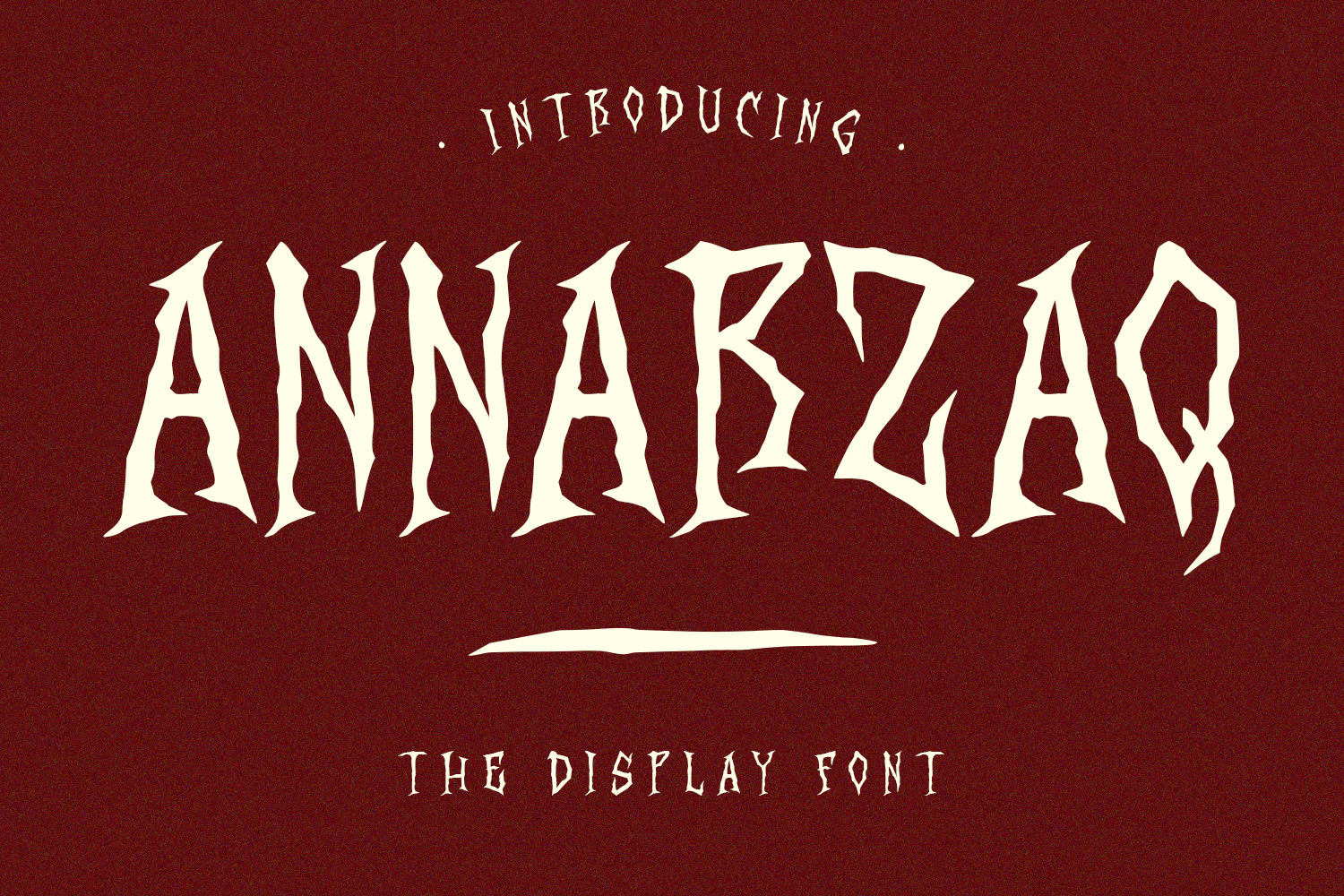
Annarzaq Display Font
Annarzaq is a display font. Bold stroke, fun character with a bit of alternates. To give you an extra creative work. Annarzaq font support multilingual more than 100+ language. This font is good for logo design, Social media, Movie Titles, Books Titles, a short text even a long text letter and good for your secondary text font with script or serif. Make a stunning work with Annarzaq font.